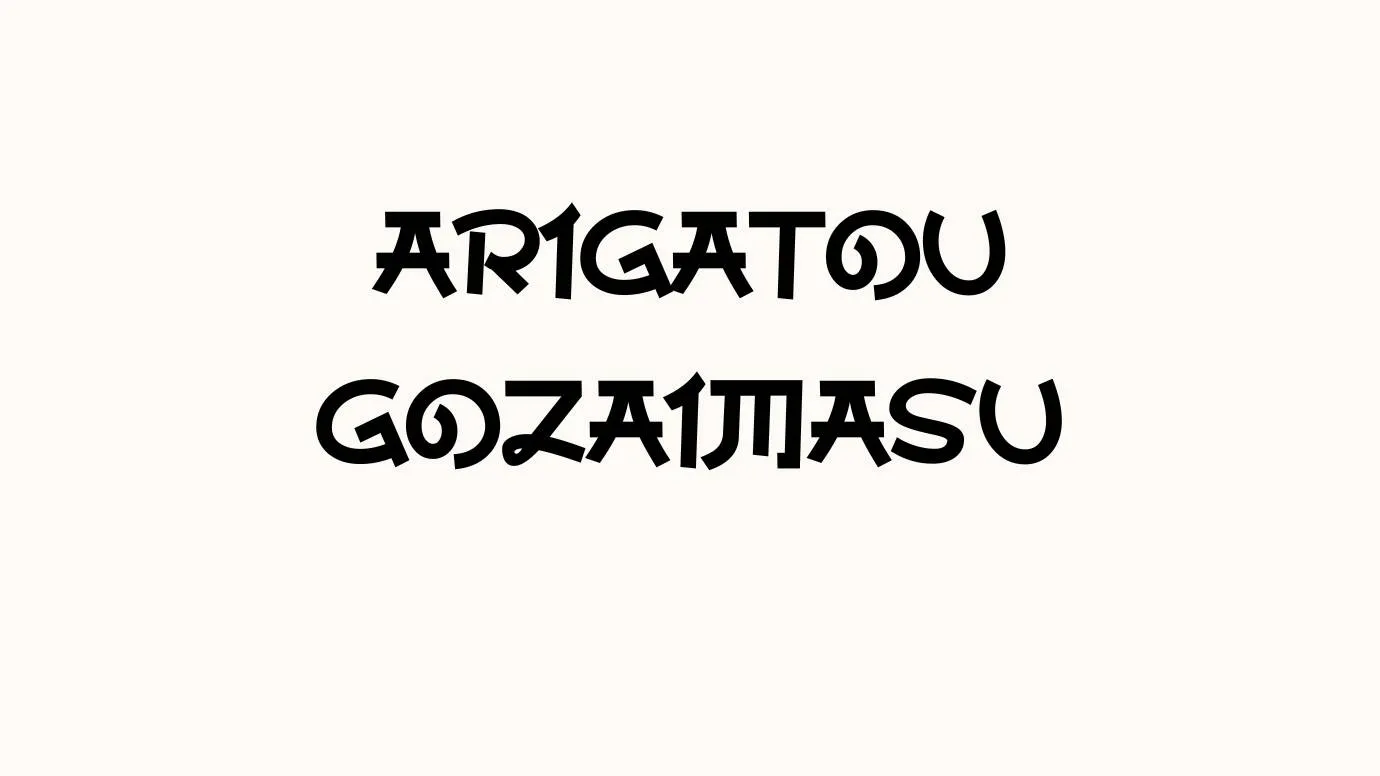
Arigatou Gozaimasu Font Family is under the fancy texture family and has very attractive Chinese and Japanese characteristics. All characters’ looks and shapes are similar to the Chinese language.
Arigatou Gozaimasu Font